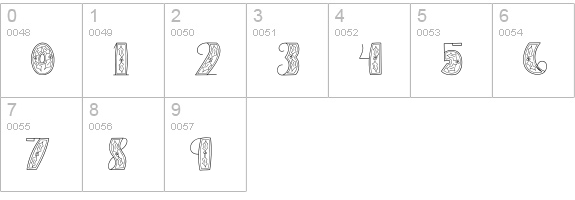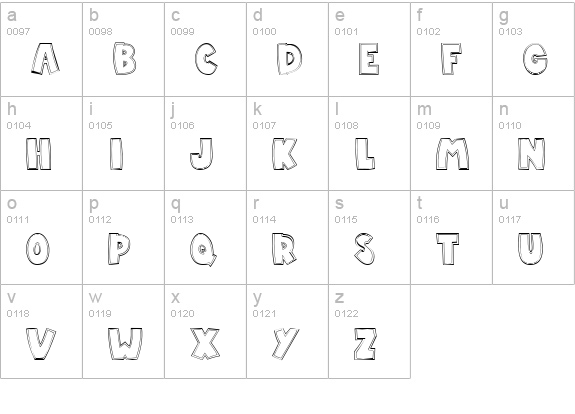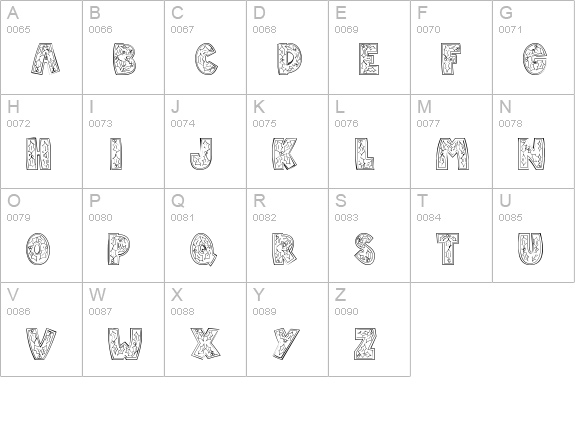
CK Christmas Berries Font Details
Introducing CK Christmas Berries font, a delightful and festive typeface perfect for all your holiday design needs. This whimsical font features charming berry-inspired shapes that capture the essence of the season. With its playful and unique style, CK Christmas Berries font is sure to add a touch of cheer to your projects. Best of all, this font is available for free download at FontsMarket.com. Simply visit the website to get your hands on this charming typeface and bring a little holiday magic to your designs. Whether you're creating greeting cards, invitations, or social media graphics, CK Christmas Berries font is the perfect choice to add a festive flair to your work. Download it today and let your creativity shine this holiday season.